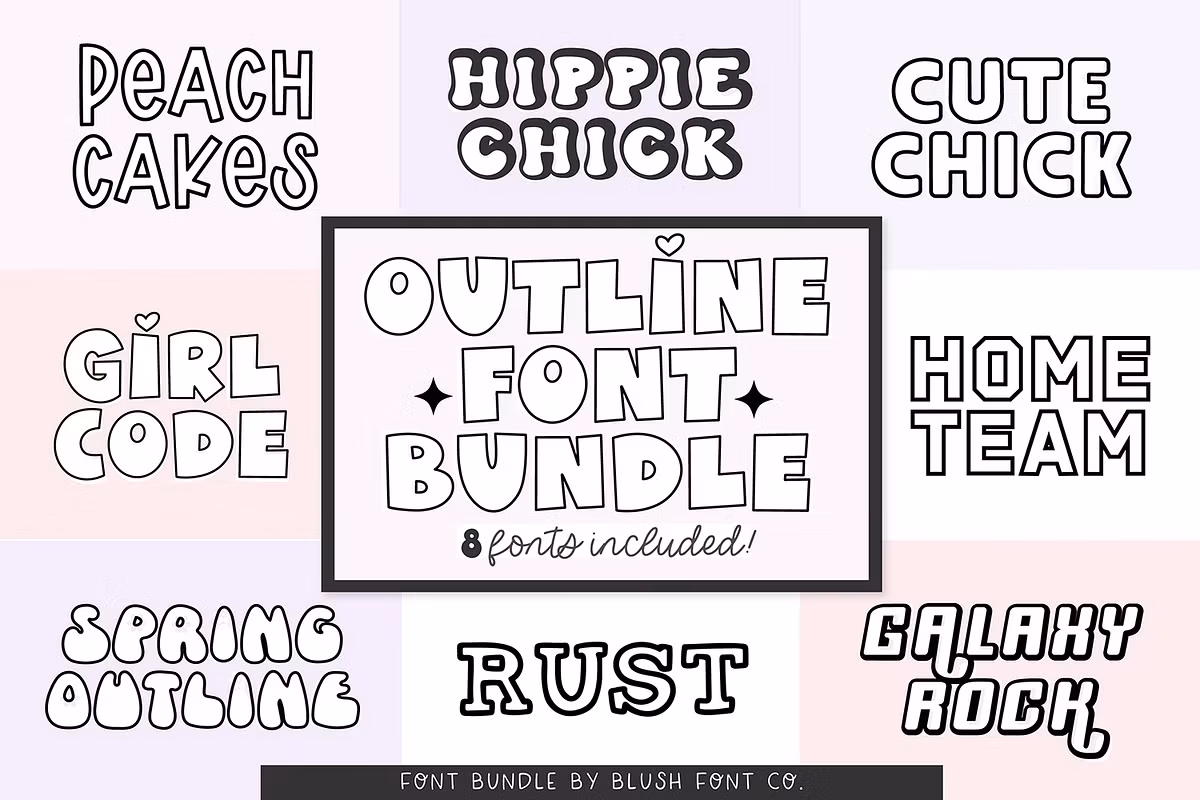
OUTLINE FONT BUNDLE Vol.1 Free Download is a powerful collection of versatile outline-style fonts designed for bold and eye-catching designs. Perfect for logos, posters, headlines, and branding, this bundle offers a variety of styles to elevate your creative projects with sleek and impactful typography.
With its sharp outlines and modern aesthetic, OUTLINE FONT BUNDLE Vol.1 Free Download helps your text stand out with clarity and style. Whether you’re designing for a contemporary brand, creating dramatic titles, or crafting promotional materials, this bundle has the perfect font for the job. Try it out in your next project to experience its versatility—then upgrade to a commercial license when you're ready to take your designs to the next level.